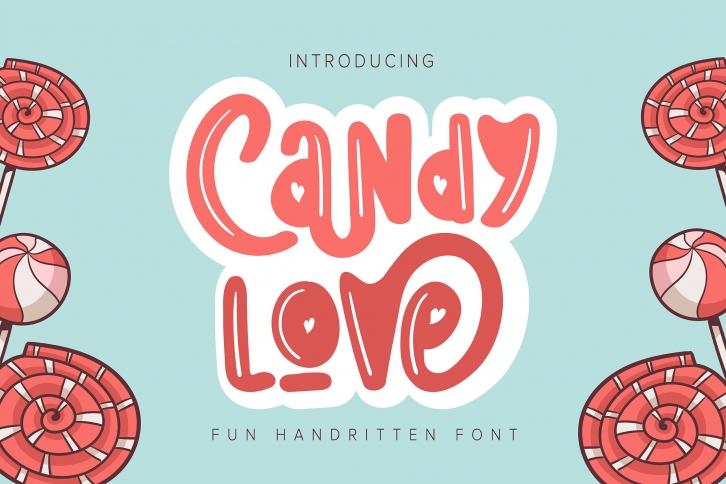
Candylove is a trendy and unique font with an authentic style. It was designed by Vunira and it's a great choice for creative people who need such a font. It was released on August 21, 2020 and the file size is 11.68 MB. Candylove will add an organic vibe to any design idea!